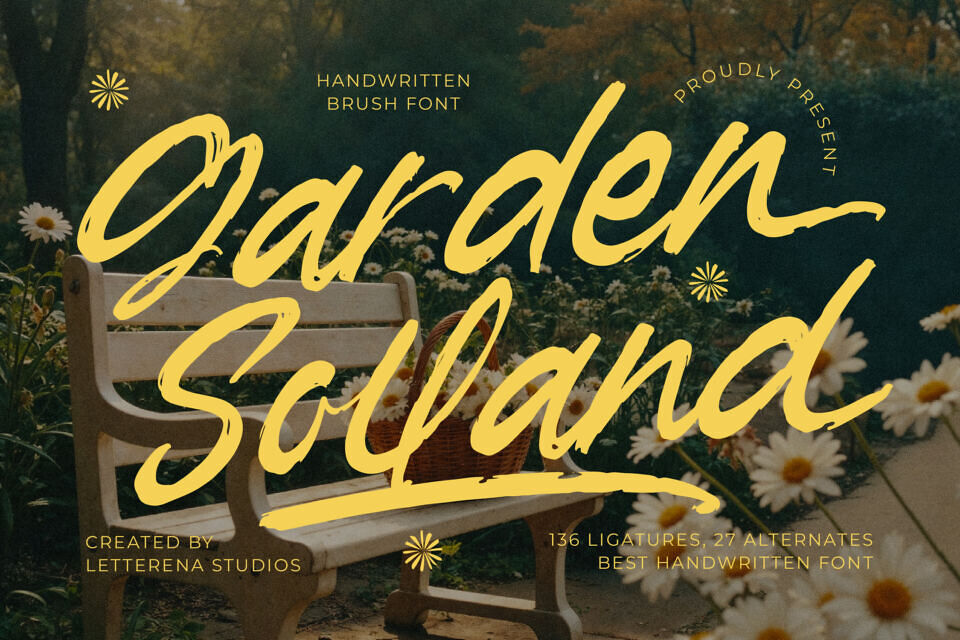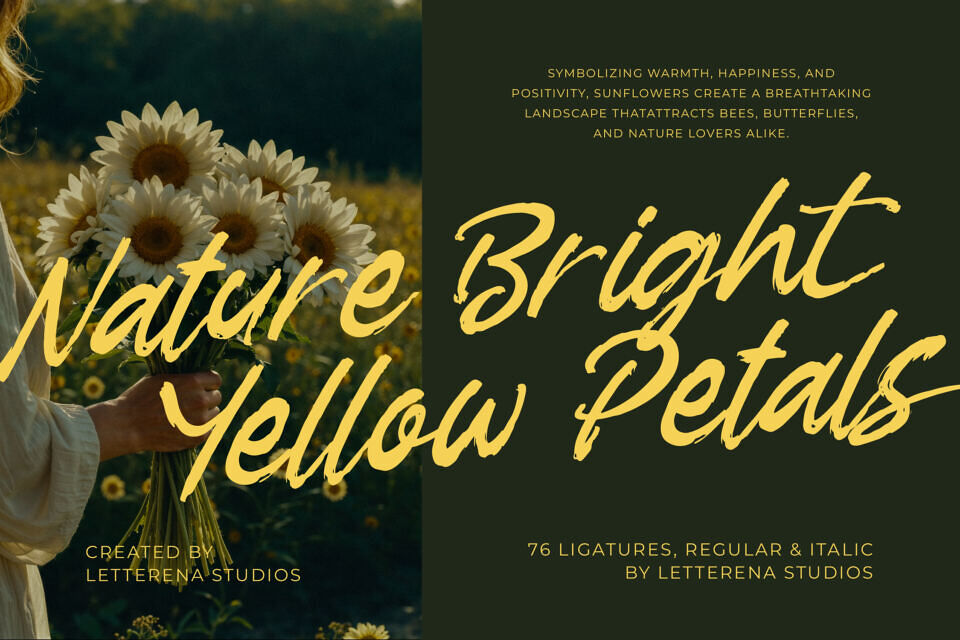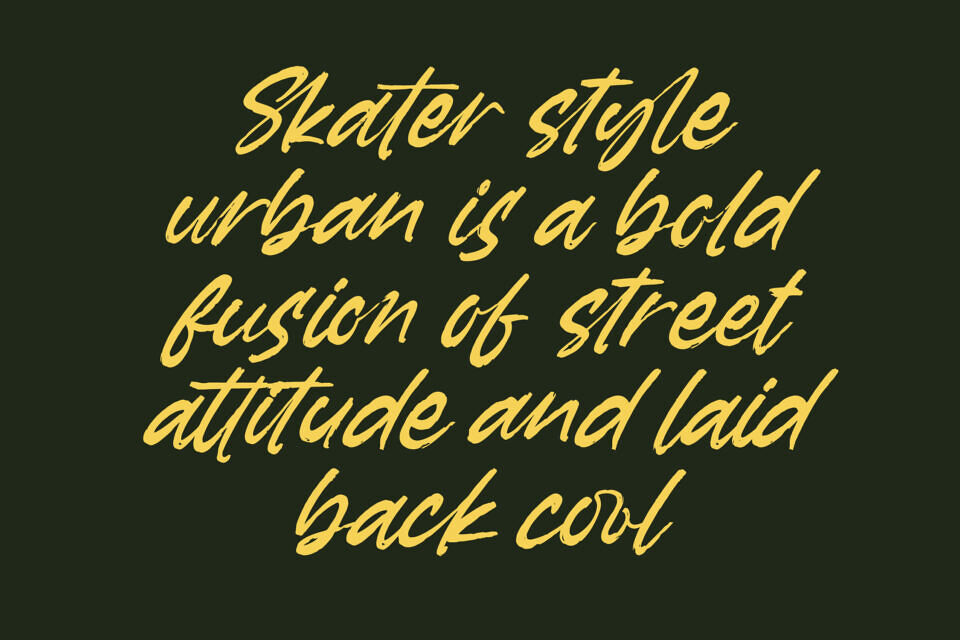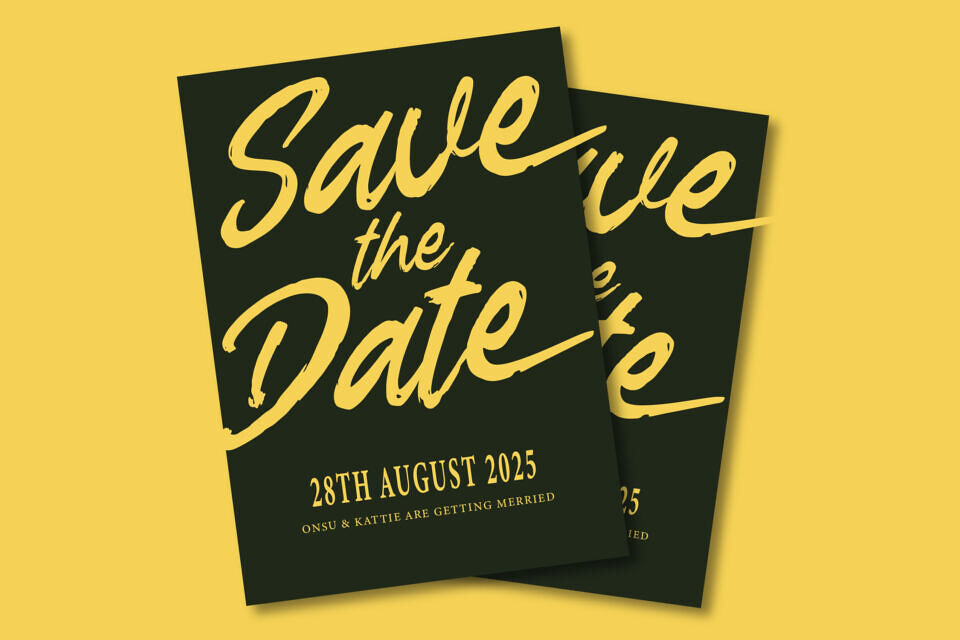
Garden Solland is a fancy Bold Handwritten Font from Letterena, suitable for any projects such as: logos, branding projects, homeware designs, product packaging, mugs, quotes, posters, shopping bags, t-shirts, book covers, name card, invitation cards, greeting cards, label, photography, watermark, special events, and all your other luxury and beautiful projects that need a Luxury Script taste.